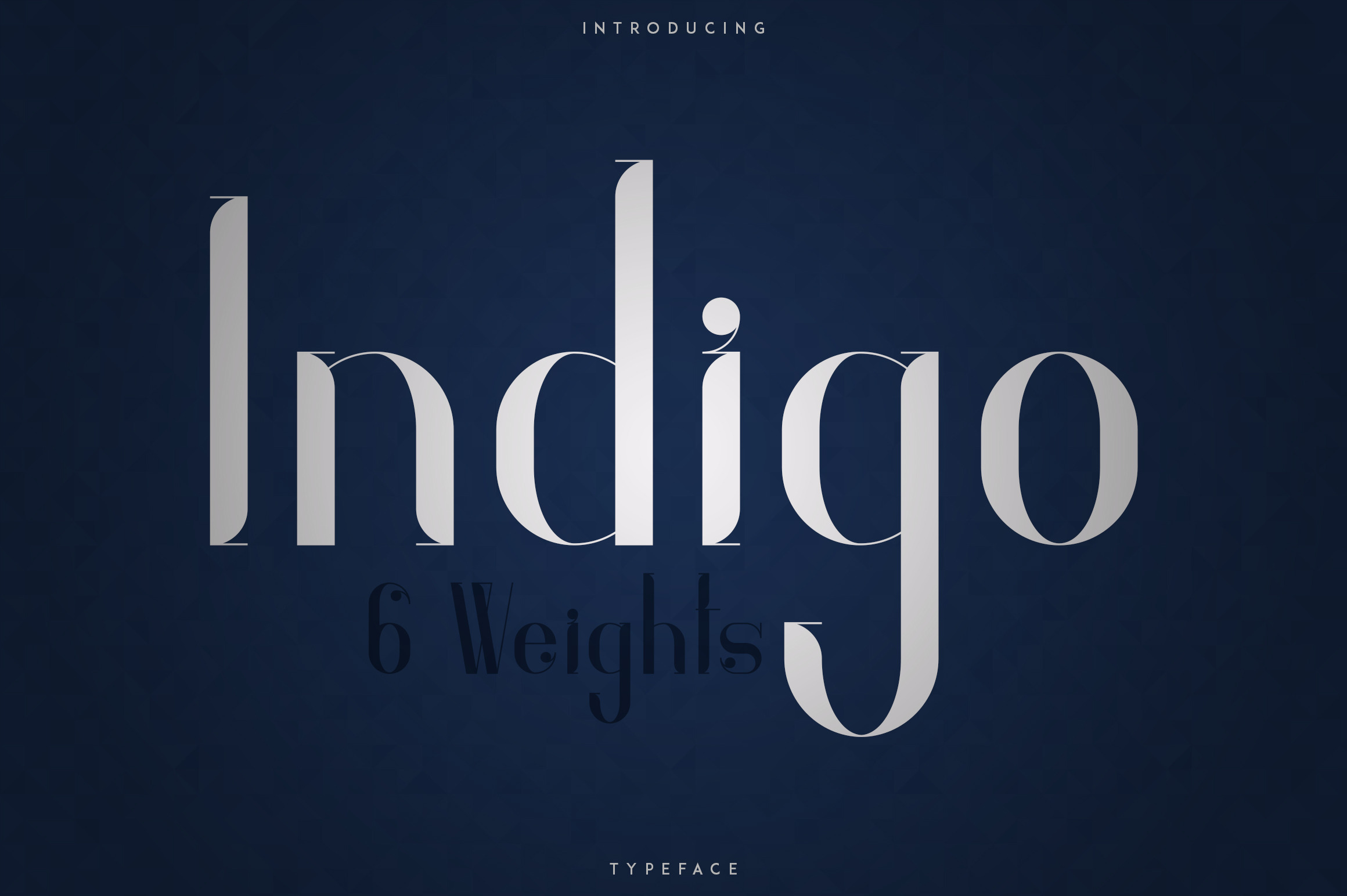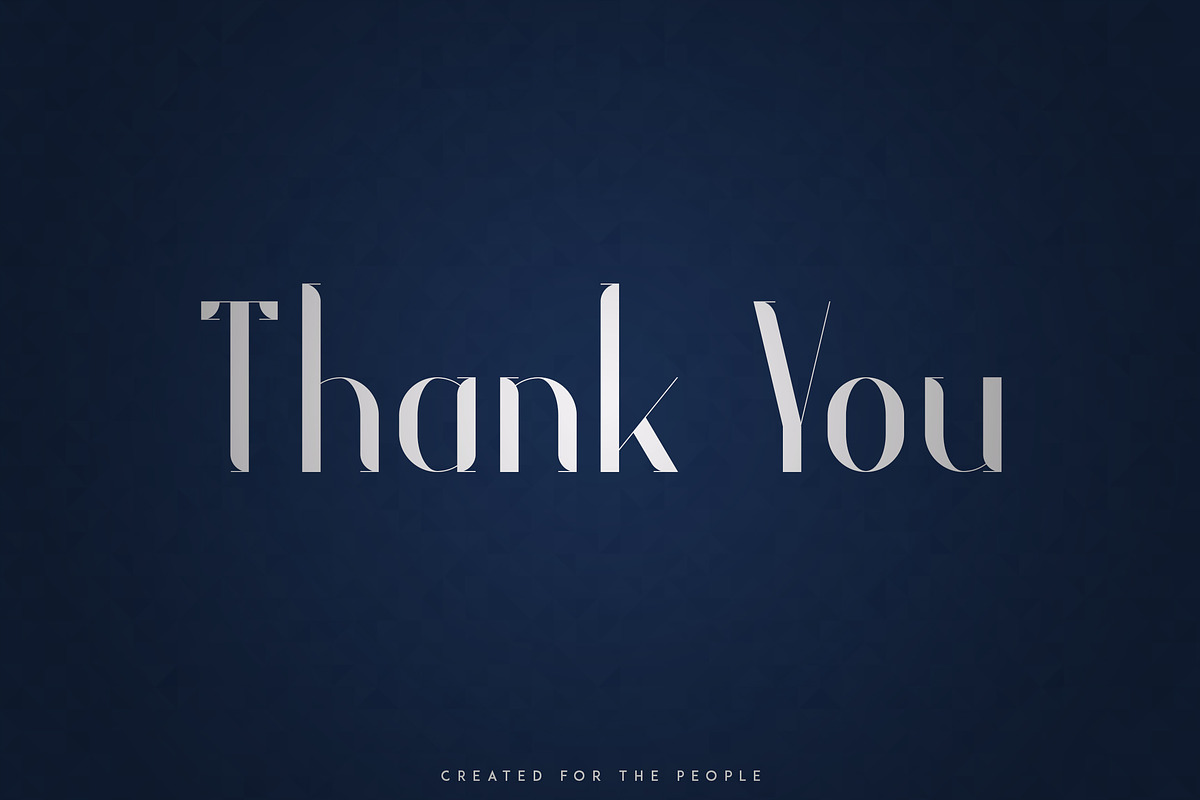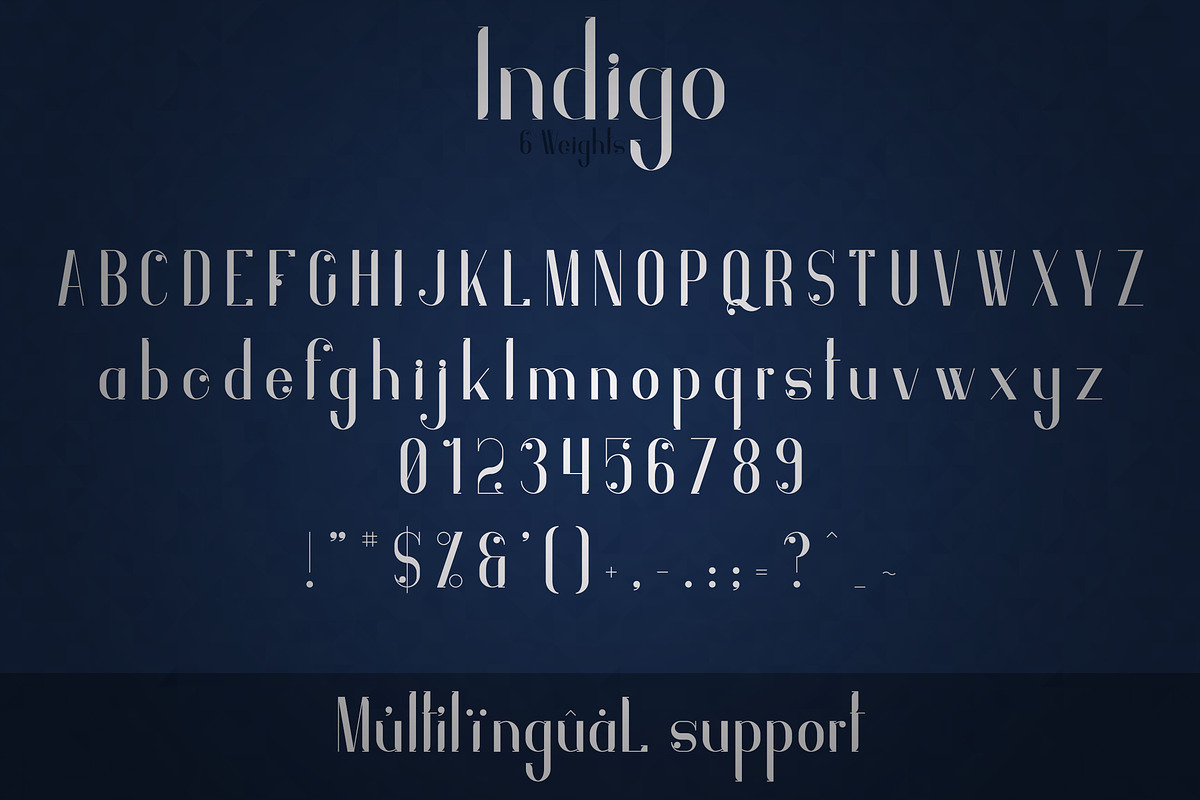
Indigo Typeface - 6 Weights
Indigo is elegant, clean typeface with 6 weights and multilingual support. It's a very versatile font that works great in large and small sizes.
Indigo is perfect for branding projects, home-ware designs, product packaging, magazine headers - or simply as a stylish text overlay to any background image.
- Uppercase,lowercase, numeral,punctuation & Symbol
- Clean
- 6 weights - Extra light, Light, Regular, Bold, Extra bold, Black